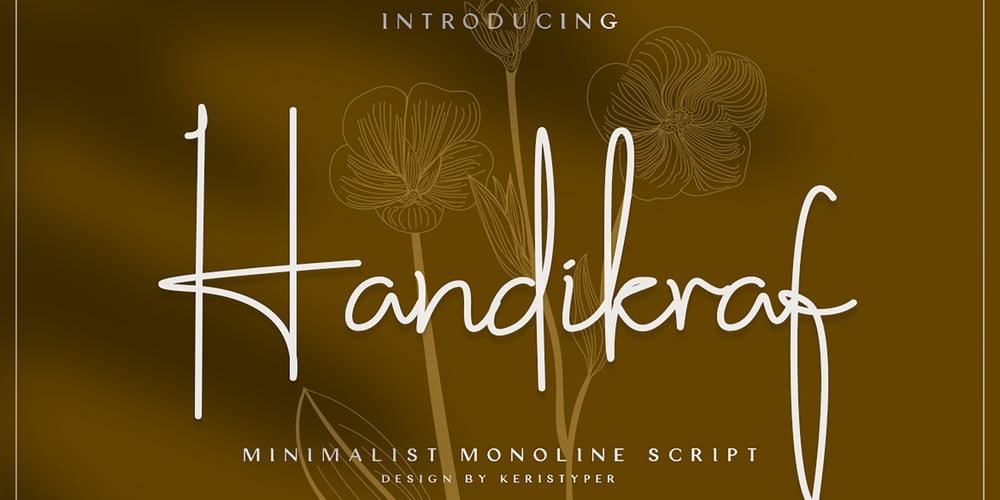
Handikraf Font Family was designed by Tezar Tantular and published by Keristyper Studio. Handikraf contains 2 styles and family package options. Handikraf Signature Script Font is charming and elegant Typeface. Created with an authentic, handwritten feel. It looks stunning on wedding invitations, thank you cards, quotes, greeting cards, logos, business cards, and every other design which needs a handwritten touch.Handikraf Signature Script Font multilingual support: Afrikaans, Albanian, Catalan, Danish, Dutch, English, Estonian, French, Finnish, German, Icelandic, Indonesian, Italian, Malay, Norwegian, Portuguese, Spanish, Swedish, Zulu, and many more.What’s Included : Web Fonts Standard & Multilingual glyphs Ligature Works on PC & Mac Simple installations Accessible in Adobe Illustrator, Adobe Photoshop, Adobe InDesign, and even work on Microsoft Word. Hope you enjoy our font!